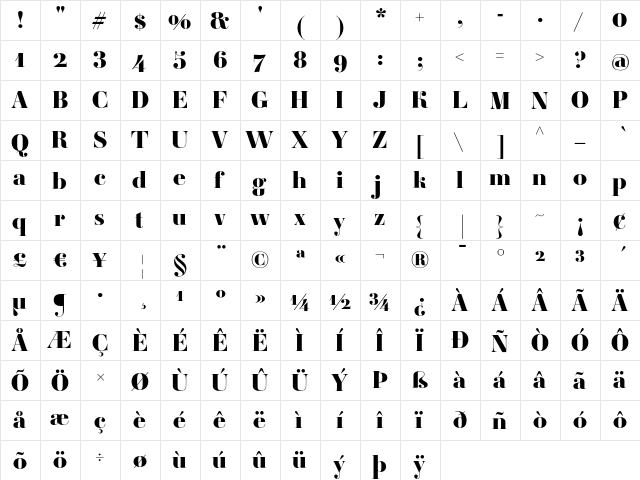
Ambroise Bold Font Preview
Ambroise Bold
Design Context for Ambroise Typeface
Ambroise offers clean, dependable letterforms without strong stylistic allegiance, making it a practical choice for designers who need flexibility. The heavy weight commands attention and anchors typographic hierarchies.